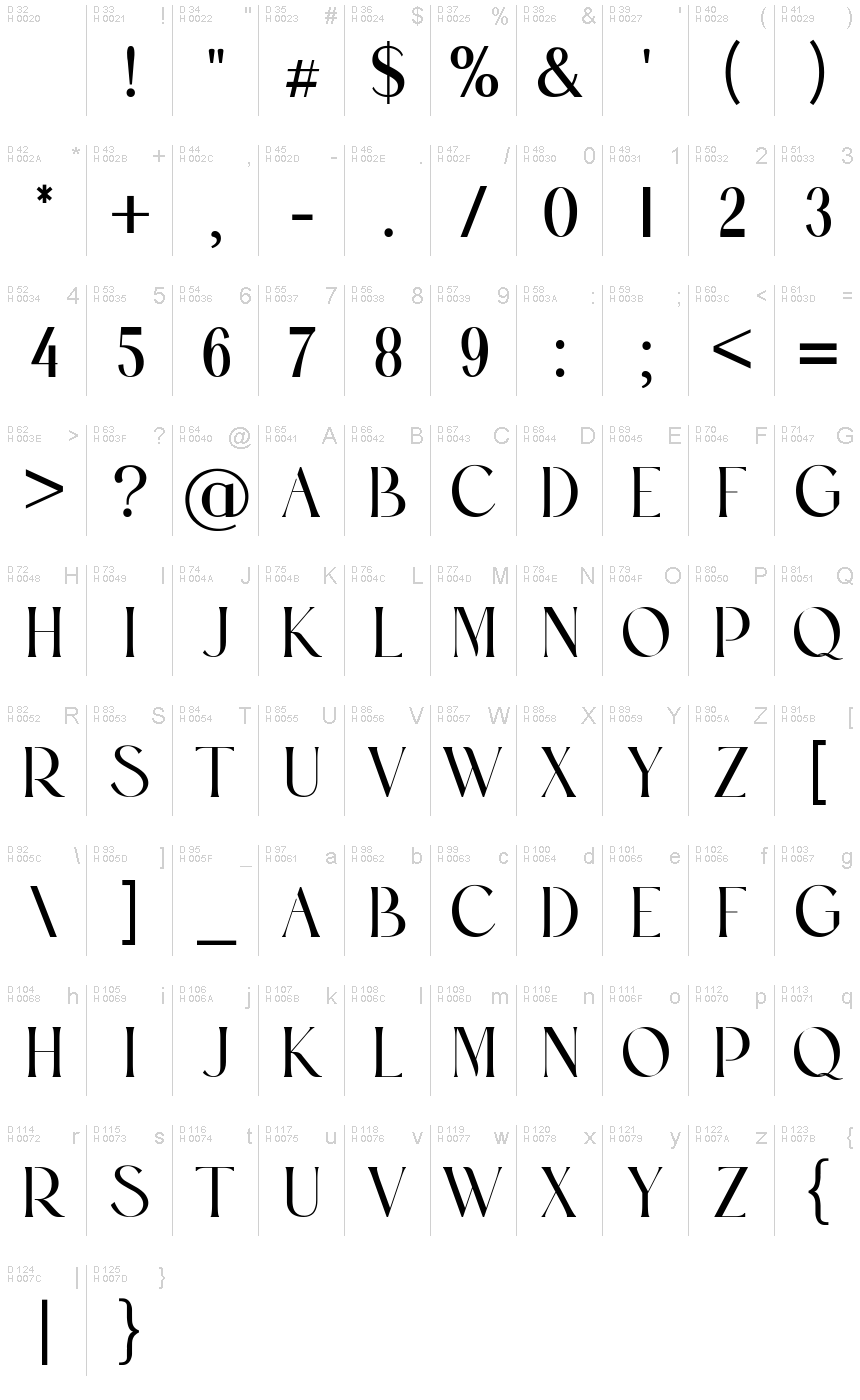
BohemianStylish
Bohemian Stylish by UI Creative is a serif font that exudes elegance and sophistication. Its slender, elongated characters combined with distinctively sharp serifs create a timeless aesthetic perfect for high-end branding and editorial designs.
The refined structure of Bohemian Stylish delivers a sense of luxury and refinement, making it ideal for fashion magazines, upscale invitations, and elegant logos. This font's unique charm lies in its ability to convey both modernity and classicism, making it versatile for various creative projects that require a touch of class.